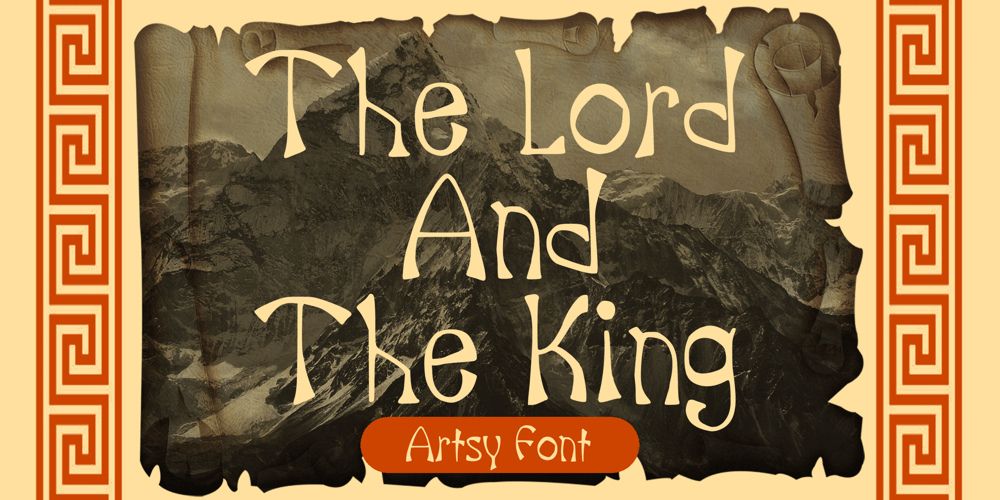
The Lord And The King Font Family was designed by Gabriel Valentinus and published by Mvmet. The Lord And The King contains 1 styles and family package options. The Lord and The King is an medieval display font inspired by epic high fantasy medieval and middle ages movies. You can use it for anything ranging from t-shirts, book designs, and greeting cards to stickers and posters, or anything that needs a casual touch. Fall in love with its incredibly versatile style, and use it to create lovely designs!